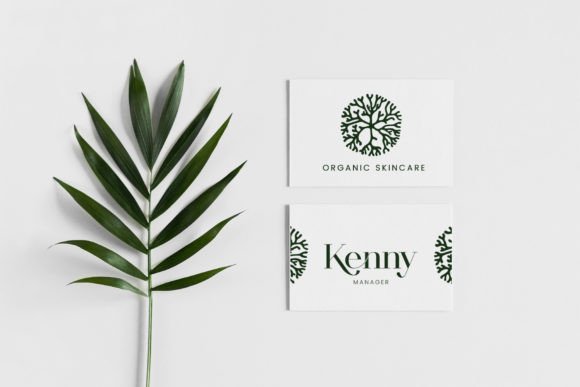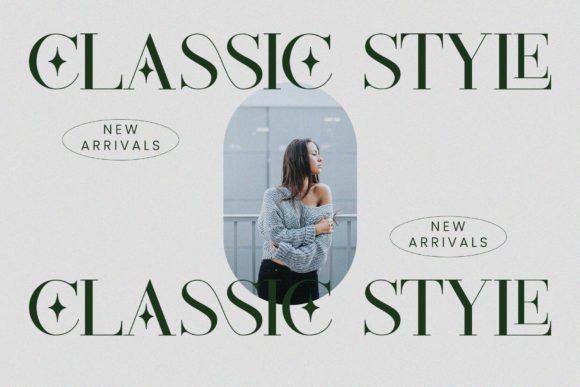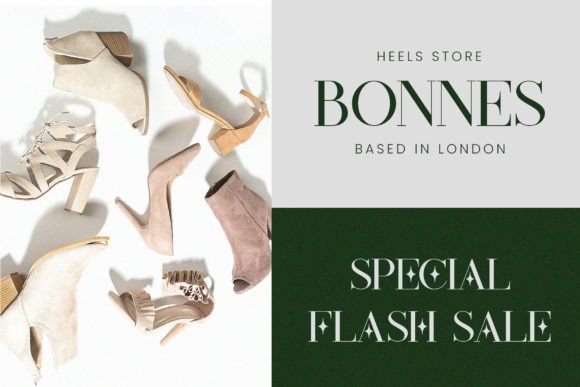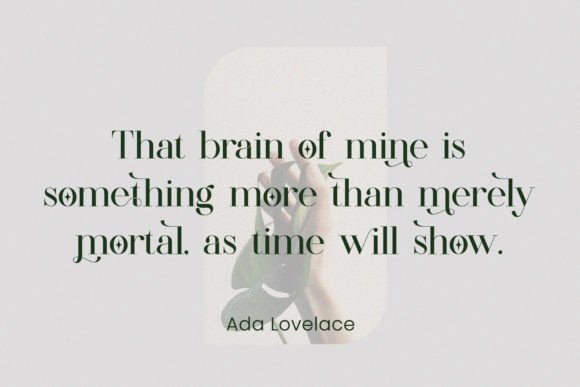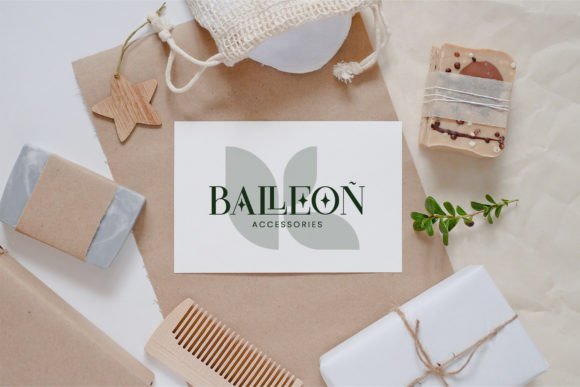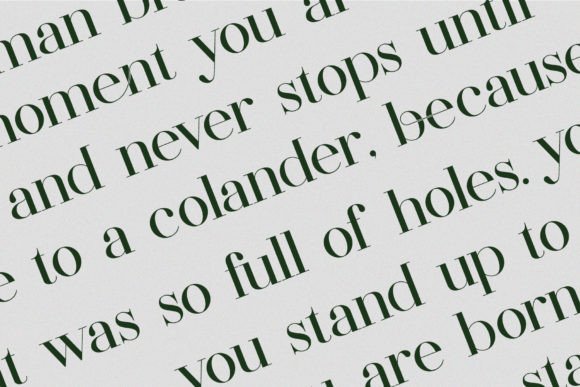
Bethia Font: Elevate Your Designs with Elegance and Sophistication
In the world of typography, a font can make or break a design. For designers and crafters seeking to add a touch of elegance and sophistication to their projects, the Bethia Font is an excellent choice. Specifically, Bethia Serif is a balanced, smooth, and stylish serif font that has captured the hearts of many designers. In this article, we’ll explore the features and benefits of the Bethia Font, and how it can elevate your designs to the next level.
The Characteristics of Bethia Serif
Bethia Serif is a subtle serif font that exudes sophistication and elegance. Its beautiful character makes it an ideal choice for various design projects, including invitation card designs, company logos, movie titles, movie names, business cards, book titles, brand names, and more. The font’s balanced and smooth texture ensures that it remains legible, even at smaller font sizes.
One of the standout features of the Bethia Font is its versatility. The font’s stylish alternations and ligatures make it the perfect partner for any project. Whether you’re designing a wedding invitation, a company logo, or a book title, Bethia Serif adapts seamlessly to any design style. Its elegant and sophisticated feel ensures that your designs will stand out from the crowd.
Bethia Serif is PUA (Private Use Area) encoded, which means that you can access all of the amazing glyphs and ligatures with ease. This feature makes it easy to get creative with your designs, without having to worry about complicated font editing. With PUA encoding, you can focus on what matters most – creating stunning designs that capture your audience’s attention.
Bethia Font is a perfect fit for designers and crafters who want to add a touch of elegance and sophistication to their projects. Whether you’re a professional designer or a DIY enthusiast, this font is easy to use and offers endless creative possibilities. With Bethia Serif, you can create stunning designs that reflect your unique style and vision.
Benefits of Using Bethia Font
- Elegance and Sophistication: Bethia Serif adds a touch of elegance and sophistication to any design project.
- Versatility: The font’s stylish alternations and ligatures make it perfect for various design projects.
- Easy to Use: PUA encoding makes it easy to access all glyphs and ligatures.
- Legibility: The font’s balanced and smooth texture ensures legibility, even at smaller font sizes.
- Creative Freedom: With Bethia Serif, you can create stunning designs that reflect your unique style and vision.
Tips for Using Bethia Font
To get the most out of Bethia Serif, here are some tips:
- Experiment with Different Sizes: Bethia Serif looks great at various font sizes, so don’t be afraid to experiment.
- Play with Ligatures: The font’s ligatures add an extra touch of elegance to your designs.
- Mix and Match: Combine Bethia Serif with other fonts to create unique and interesting design effects.
In conclusion, the Bethia Font is an excellent choice for designers and crafters seeking to add a touch of elegance and sophistication to their projects. With its balanced and smooth texture, stylish alternations and ligatures, and PUA encoding, Bethia Serif is the perfect partner for any design project. Whether you’re a professional designer or a DIY enthusiast, this font offers endless creative possibilities. So why not give Bethia Font a try and elevate your designs to the next level?